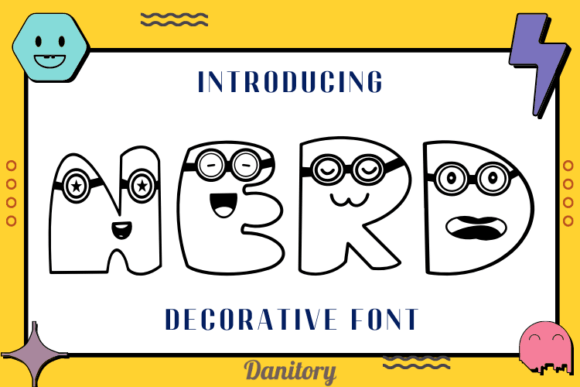
Introducing Nerd Font, the ultimate font that will bring a touch of whimsy and charm to all your projects! Created by the talented danita.kukkai, this decorative font is more than just a collection of letters. It's a gateway to a world of creativity and imagination, where every design comes to life with a funny and cute face.
If you're tired of the same old boring fonts, Nerd Font is here to elevate your designs and make them stand out from the crowd. With its unique cartoon style, this font is perfect for capturing the attention of children, making it ideal for teachers, parents, and anyone who wants to infuse a sense of playfulness into their creations.
But don't be fooled by its adorable appearance - Nerd Font is also highly versatile. It can be used for a wide range of projects, from decorating worksheets and teaching aids to creating eye-catching birthday cards. The possibilities are endless!
When it comes to marketing, Nerd Font is a game-changer. Its captivating and emotional appeal will instantly draw in users who are looking to add a touch of fun and modernity to their designs. Whether you're a professional designer or a creative enthusiast, this font is a must-have in your collection.
Imagine the joy on a child's face when they receive a birthday card adorned with Nerd Font. Picture the excitement in a classroom as students see their worksheets come to life with this delightful font. With Nerd Font, you have the power to create magical moments and leave a lasting impression.
But Nerd Font isn't just for kids - it's also perfect for anyone who wants to bring a youthful and vibrant energy to their designs. From creating playful logos to designing captivating posters, this font will add a touch of whimsy that is sure to captivate your audience.
So why wait? Step into the world of Nerd Font and let your imagination run wild. Unleash your creativity and watch as your designs come to life in ways you never thought possible. With its captivating and emotional appeal, Nerd Font will elevate your projects and leave a lasting impression on anyone who sees them.